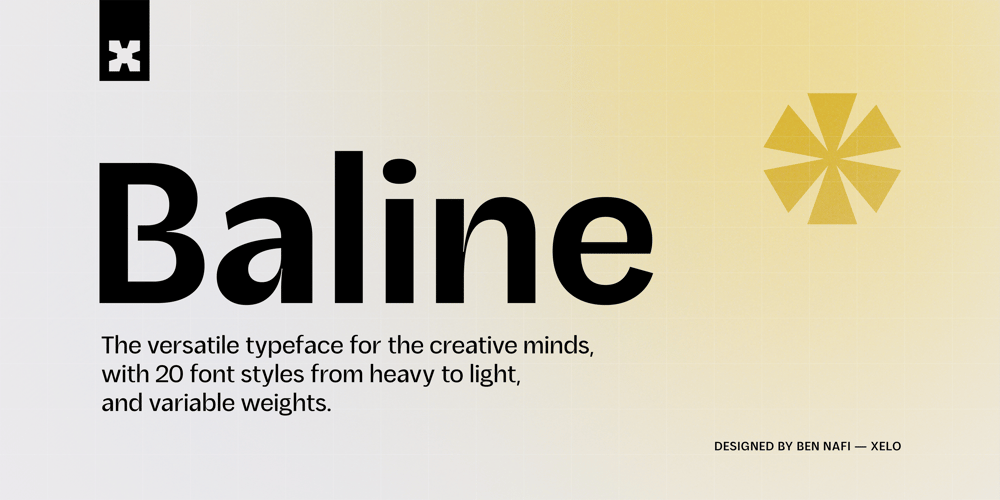
Baline Font Family was designed by Ben Nafi and published by Xelo. Baline contains 20 styles and family package options. Baline is a modern and dynamic sans-serif typeface that is perfect for branding, marketing materials, and personal projects. With 20 font styles ranging from heavy to light, and variable weights, Baline is a versatile typeface that can adapt to any design project. Its sleek and clean design makes it easy to read, while its contemporary style gives your text a unique and sophisticated look. Baline is perfect for anyone looking to make a statement with their typography. Whether you’re a designer, marketer, or just someone who appreciates beautiful typefaces, Baline is the perfect font for you. Try it out today and see how it can elevate your designs to the next level. Versatility: With 20 font styles ranging from heavy to light and variable weights, Baline is a versatile typeface that can adapt to any design project. This makes it a great investment for designers who need a font that can work across multiple mediums and projects. Modern and dynamic: Baline’s sleek and clean design makes it easy to read, while its contemporary style gives your text a unique and sophisticated look. This makes it perfect for branding, marketing materials, and personal projects that need a modern and dynamic touch. Professional quality: Baline is a professionally designed font that has been created to the highest standards of typography. This means that you can be confident that your designs will look polished and professional, whether they are used for print or digital projects. Multilingual support: Baline supports multiple languages, making it a great choice for designers who need a font that can handle multilingual projects. Easy to use: Baline is easy to use and install, so you can start using it right away without any hassle. It also comes with a complete set of characters and symbols, so you can use it for a wide range of design projects. Great value: With its range of font styles and professional quality, Baline offers great value for money. It’s a smart investment for any designer who wants to elevate their typography game without breaking the bank. Baline font is a great choice for anyone looking for a versatile, modern, and professional-quality typeface that can handle a wide range of design projects.